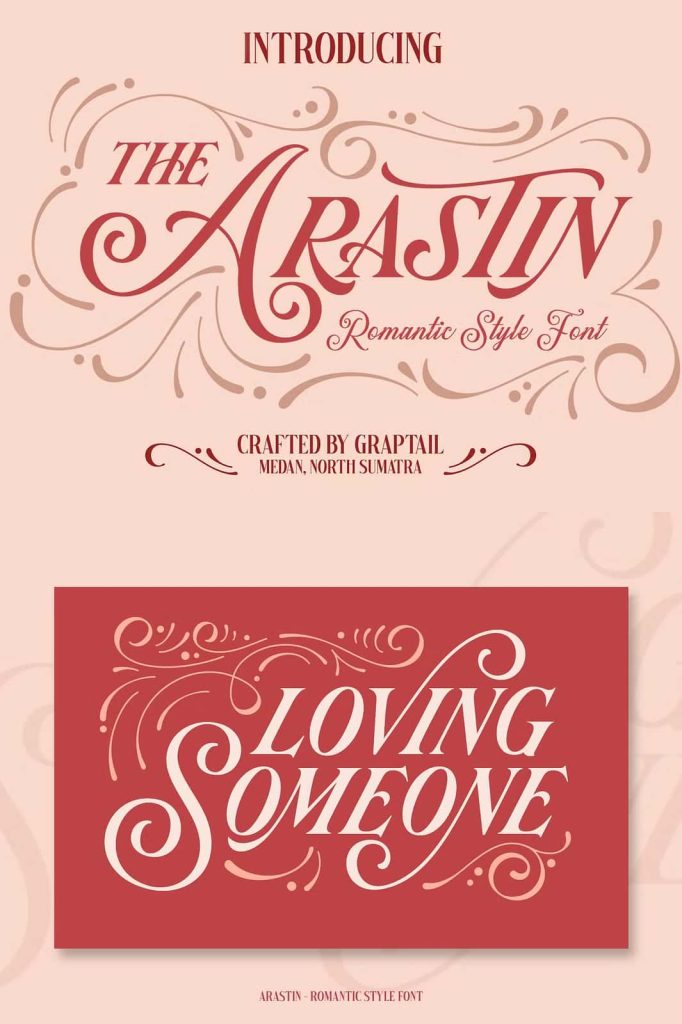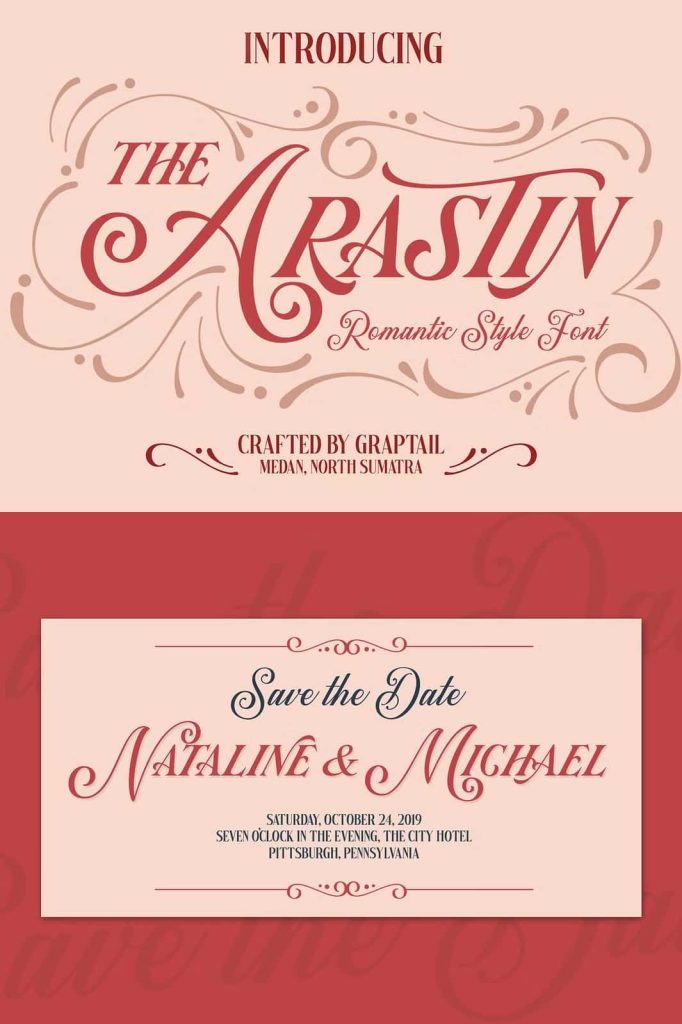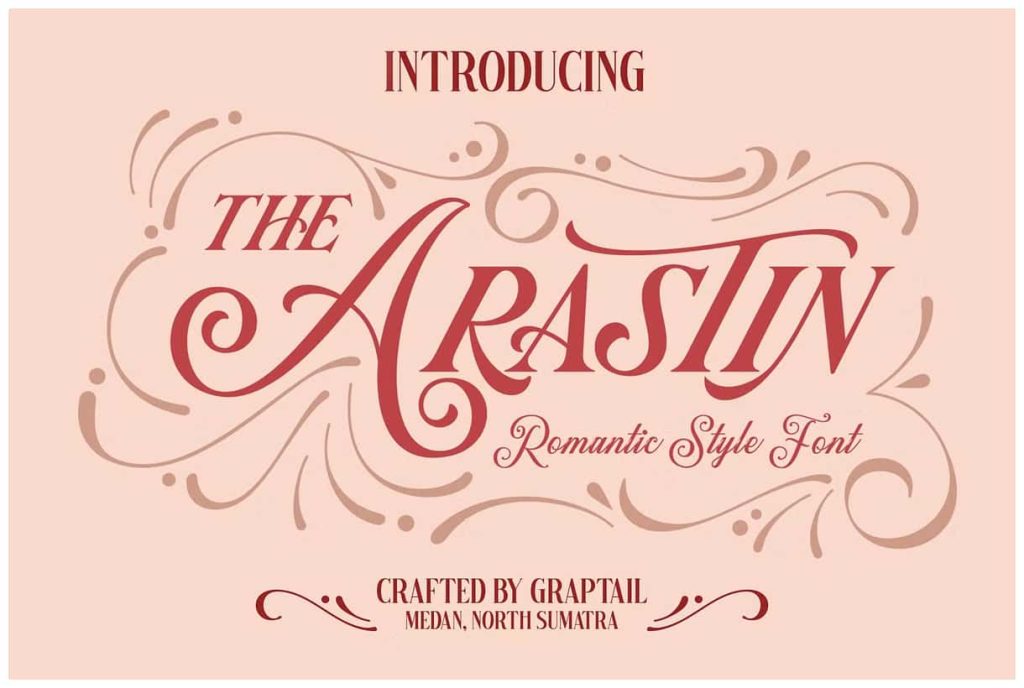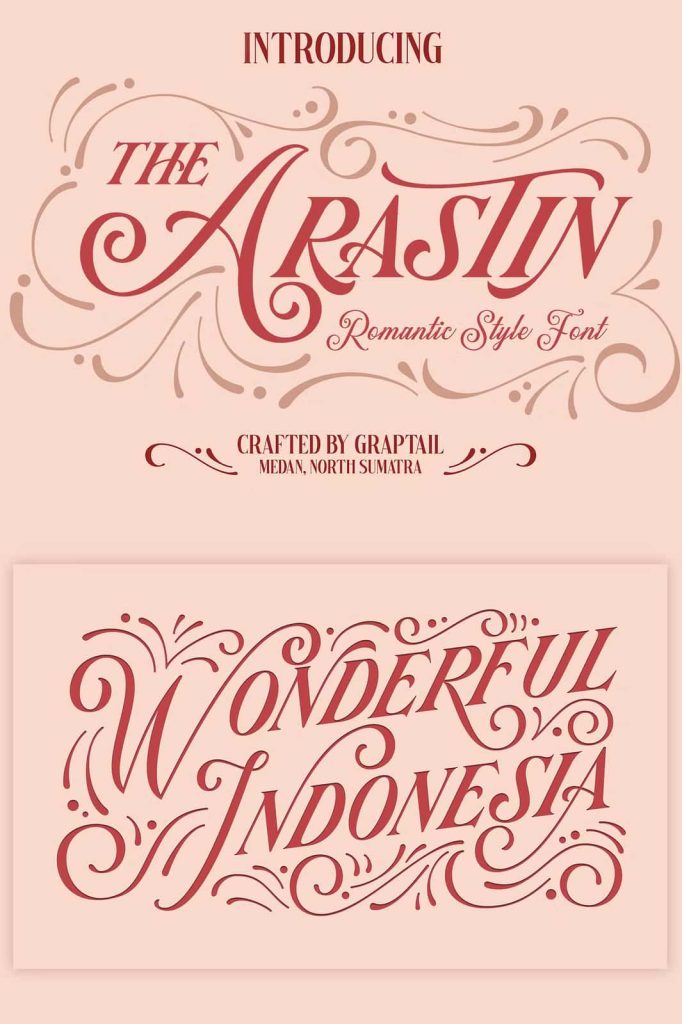
Arastin: A Romantic Display Font with Flowing Curves and Expressive Style
Arastin is a romantic display font designed to deliver elegance, movement, and visual harmony. Built with both lowercase and uppercase characters, Arastin offers a complete typographic experience that includes script-inspired forms, italic variations, and refined capital styles. Every character flows with confidence, creating a seamless rhythm that feels expressive and intentional.
This typeface is defined by its uninterrupted outer curves. Each letter moves smoothly from beginning to end, creating a continuous motion that feels natural and refined. This fluid construction gives Arastin a strong visual presence while maintaining balance and readability, making it ideal for expressive display use.
Distinctive Design Philosophy Behind Arastin
The core concept of Arastin lies in motion and continuity. The curves flow in one swift movement, from nose to tail, without harsh breaks or rigid transitions. This design approach creates a consistent type color across words and paragraphs, ensuring that text feels cohesive rather than fragmented.
Flowing Outer Curves
Arastin’s outer curves define its personality. Each letterform maintains a smooth and uninterrupted line, reinforcing the romantic and graceful nature of the font. These flowing shapes create an elegant silhouette that remains visually appealing even at larger display sizes.
Balanced Type Color and Detail
The uninterrupted curves influence not only individual characters but also the overall texture of text. Arastin maintains a balanced type color, allowing words to feel evenly weighted across a layout. This harmony helps designers create compositions that look polished and intentional.
Multiple Styles for Creative Freedom
Arastin is more than a single display font. It offers a variety of styles that expand creative possibilities while maintaining a consistent visual identity. Designers can explore different moods and hierarchies without switching to an unrelated typeface.
Uppercase and Lowercase Characters
The inclusion of both uppercase and lowercase letters allows Arastin to adapt to a wide range of design needs. Uppercase characters provide strong visual impact for titles and logos, while lowercase forms introduce softness and readability for longer text elements.
Script, Italic, and Capital Variations
Arastin’s script-like structure, italic movement, and refined capital styles give designers multiple options for expression. These variations make it easy to emphasize specific words, create contrast, or build dynamic typographic compositions while staying within the same font family.
Stylistic Alternates for Versatile Design
One of the defining features of Arastin is its wide range of stylistic alternates. These alternates allow designers to customize letterforms and create unique typographic expressions. By switching characters, you can adjust the tone of a design from classic elegance to modern romance.
This flexibility makes Arastin especially valuable for branding and display projects. Designers can create logos and headlines that feel distinctive and handcrafted, ensuring that each project stands apart while maintaining a cohesive style.
Perfect Applications for Arastin Display Font
Arastin is designed to perform exceptionally well in display settings where personality and elegance matter most. Its romantic character and flowing movement make it a strong choice for both print and digital media.
Headlines, Logos, and Posters
For headlines and logos, Arastin delivers instant visual impact. The smooth curves and expressive forms draw attention and communicate emotion, making it ideal for posters, brand identities, and promotional materials that need to stand out.
Packaging, Apparel, and Print Design
Arastin works beautifully on packaging, T-shirts, postcards, and printed products. Its flowing structure adds sophistication and charm, enhancing product presentation and creating a memorable visual impression.
Why Choose Arastin for Your Creative Projects
Choosing Arastin means choosing a display font that combines romance, flexibility, and strong visual consistency. Its uninterrupted curves, balanced type color, and extensive stylistic alternates give designers the tools to craft expressive and elegant typography.
If you are searching for a romantic display font that flows effortlessly and adapts to a wide range of creative applications, Arastin offers a refined and versatile solution. It empowers designers to create bold, elegant, and emotionally engaging designs across multiple platforms.